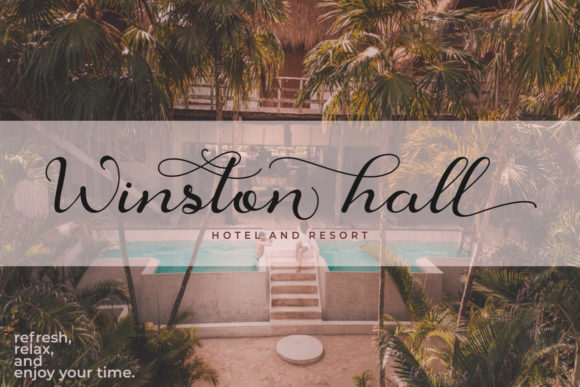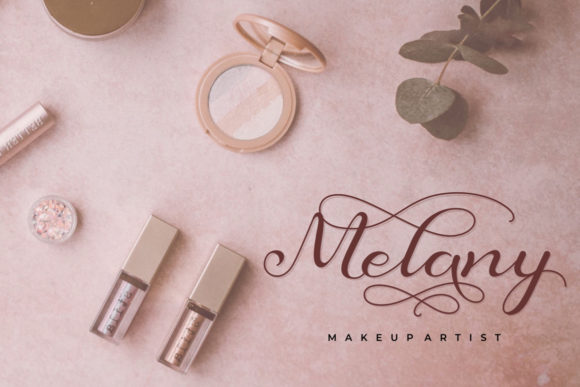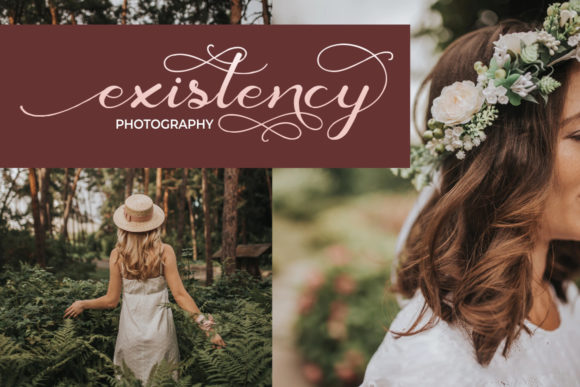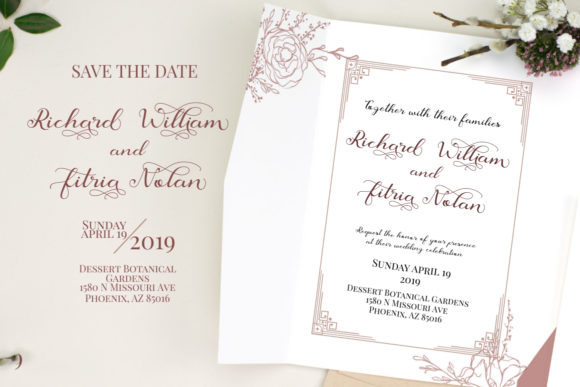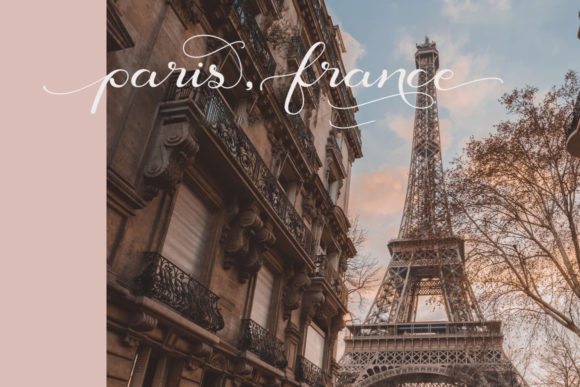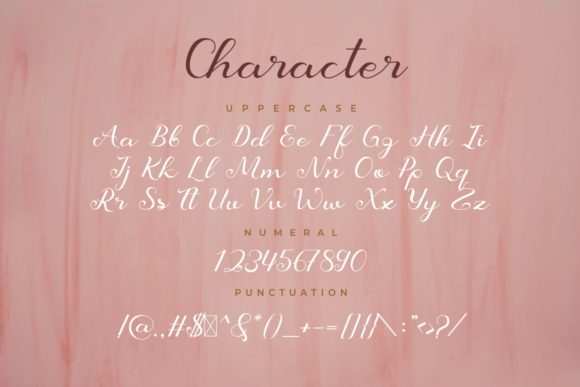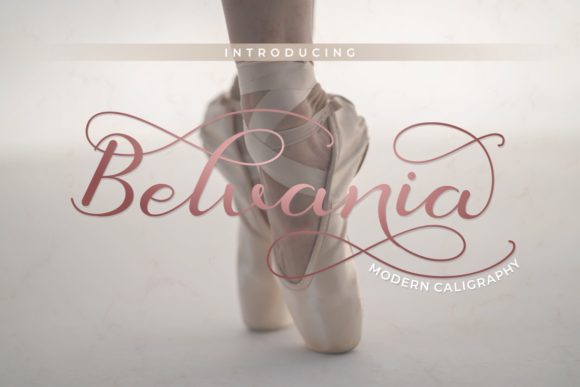
The Sweet Charm of Belvania Font: A Designer’s Delight
I still remember the time I was working on a wedding invitation project, and my client asked for a font that exuded romance and elegance. I scoured the internet, tried countless fonts, but nothing seemed to fit the bill. That was until I stumbled upon Belvania Font. ✨ It was love at first sight! The sweet, handwritten curves and swashes instantly captured the essence of the occasion, and my client was thrilled. In this article, I’ll share my experience with Belvania Font, its features, and how to make the most of it in your designs.
An Honest Review of Belvania Font
• ✨ Romantic and sweet handwritten style, perfect for wedding invitations, thank you cards, and quotes
• ✅ PUA encoded, making it easy to access glyphs and swashes
• ⚡️ Highly versatile, suitable for logos, business cards, greeting cards, and more
• 💕 Beautifully crafted, with a personal touch that’s hard to find in digital fonts
While Belvania Font is an excellent choice, there are a few things to keep in mind: 🤔
• ⚠️ Limited availability of uppercase letters, which might require some creative workarounds
• 😐 Not ideal for body text or lengthy content, as its handwritten nature can be tiring to read
The Story Behind Belvania Font
Belvania Font was crafted with love by a talented designer who aimed to create a font that captures the essence of romance and sweetness. Inspired by traditional handwritten scripts, Belvania Font brings a personal touch to digital designs. 💌
Q: What is PUA encoding, and how does it benefit Belvania Font?
PUA (Private Use Area) encoding allows font creators to include additional characters, such as glyphs and swashes, that aren’t part of the standard Unicode character set. This means you can access a wide range of special characters to enhance your designs. 💻
Q: Is Belvania Font suitable for body text or lengthy content?
While Belvania Font is beautiful, it’s not ideal for body text or lengthy content. Its handwritten nature can be tiring to read in large quantities. Instead, use it for headlines, titles, or short paragraphs. 📄